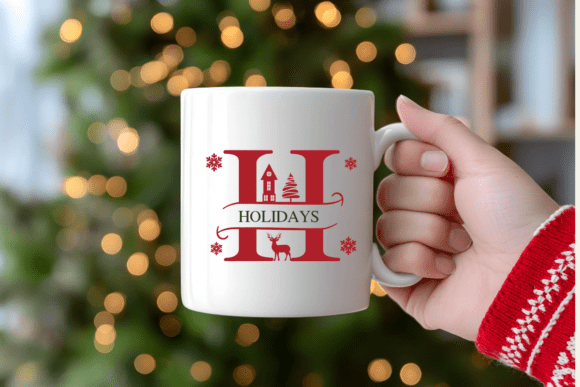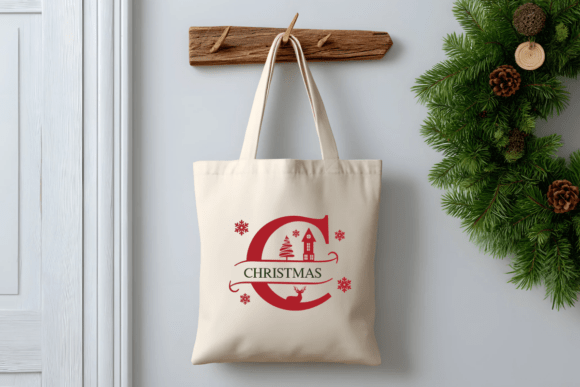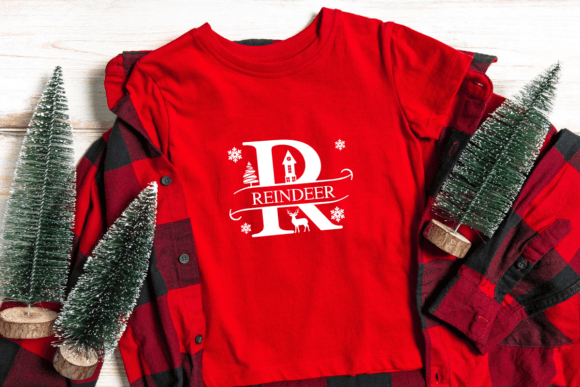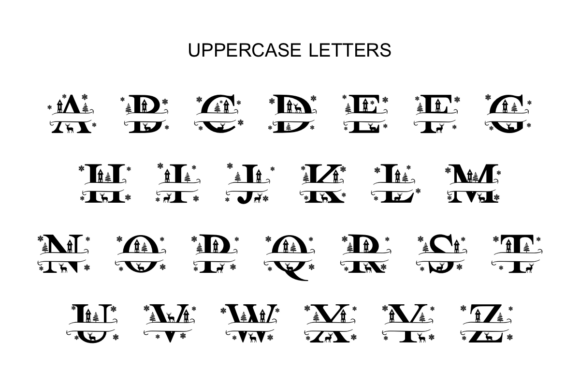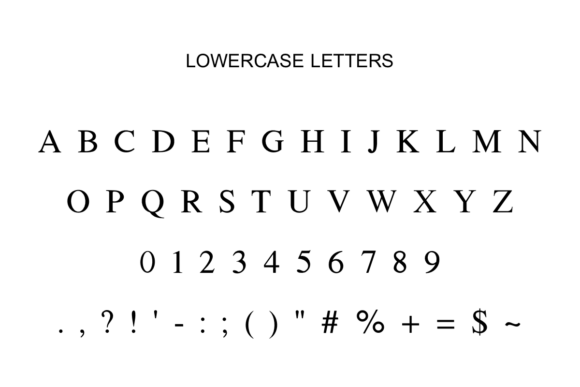
Introduction to Magicland Christmas Font Font
Fonts play a crucial role in design, and the Magicland Christmas Font font is a typeface that brings both character and versatility to any project. Whether you’re working on a branding project, a website, or a print design, the Magicland Christmas Font font offers a unique style that can elevate your work.
Magicland Christmas is a cute decorative font.
Add it to your festive projects and you will love the results .
Key Features of Magicland Christmas Font Font
Why Choose Magicland Christmas Font Font?
The Magicland Christmas Font font is more than just a typeface – it’s a design tool that helps you communicate your message with style and clarity. Its unique character set and versatile design make it suitable for a wide range of applications, from elegant invitations to bold headlines.
With its carefully crafted letterforms and balanced proportions, the Magicland Christmas Font font ensures readability and visual appeal across all mediums.
What makes Magicland Christmas Font font special?
The Magicland Christmas Font font stands out with its unique design, exceptional readability, and versatility across various design applications.